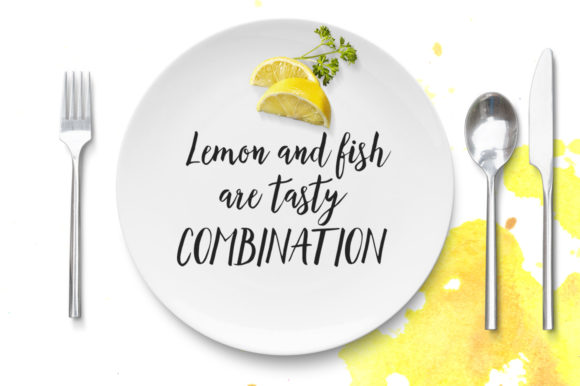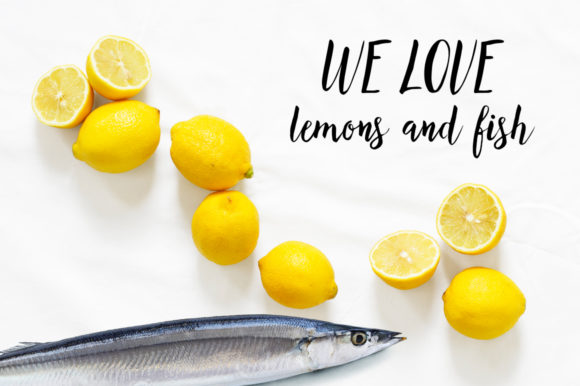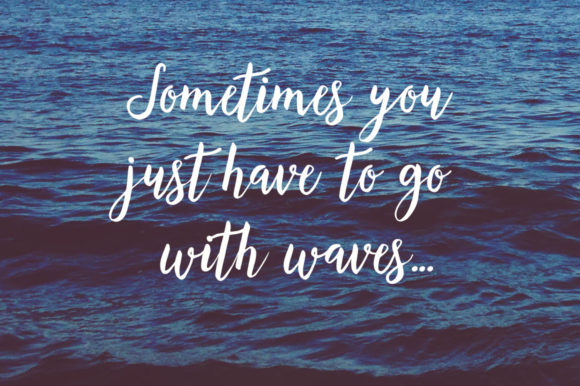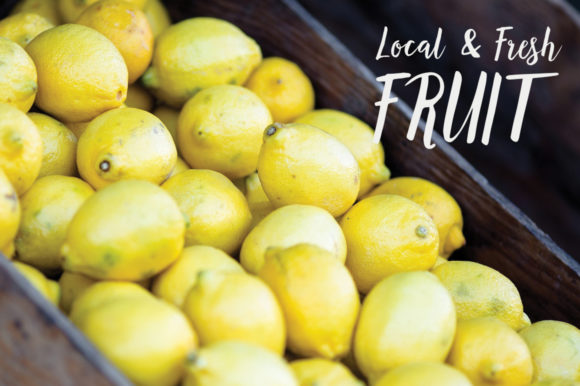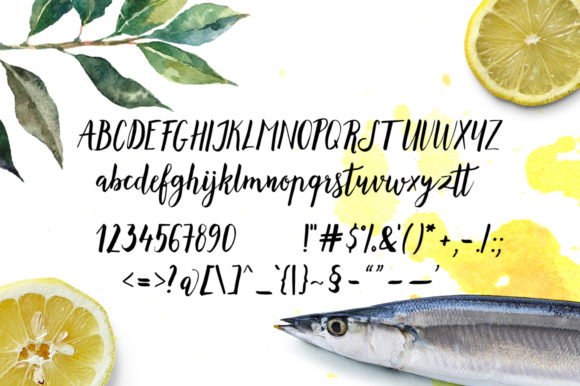
Introduction to Lemonfish Font
As a designer, there’s nothing quite like the thrill of discovering a new font that sparks creativity and sets your project apart. It’s that moment when you stumble upon the perfect combination of style and personality that makes all the difference. For me, that moment came when I found the Lemonfish Font – a delightful handlettered script that’s as charming as it is versatile.
With its playful, cursive lines and whimsical feel, the Lemonfish Font is a design resource that’s perfect for adding an artistic touch to any creative project. Whether you’re crafting wedding announcements, designing greeting cards, or building a brand, this font is sure to bring a smile to your audience’s faces. And the best part? It’s available for a free download, making it an accessible and valuable addition to any designer’s toolkit.
What sets the Lemonfish Font apart is its high-quality design, which allows for a transparent background that makes it easy to customize and integrate into your project. Whether you’re working on a commercial or personal design, this font is a must-have for any designer looking to add a little extra magic to their work.
Key Features of Lemonfish Font
- Designed with a unique, modern aesthetic, perfect for adding a touch of sophistication to designs
Honest Review: Lemonfish Font
I recently stumbled upon the Lemonfish Font and was eager to put it to the test in my latest creative project. As a designer, I’m always on the lookout for high-quality design resources that can elevate my work.
First impressions were great – the font is modern, sleek, and easy on the eyes. I was particularly impressed with the transparent background option, which made it a breeze to use in a project that required a clean and minimalist look.
- ✨ Works well in digital projects: The font’s clear and legible design makes it perfect for use in digital applications, such as websites and mobile apps.
- ✨ Great for creative projects: The font’s unique style makes it an excellent choice for creative projects that require a touch of sophistication and elegance.
However, I did encounter a few limitations while using the Lemonfish Font. ⚠️ One of the main issues I faced was the limited character set, which made it difficult to use in projects that required a wide range of characters.
Overall, I’m impressed with the Lemonfish Font and would definitely consider using it in future projects. While it may not be perfect, its unique style and high-quality design make it a valuable addition to any designer’s toolkit. And the best part? It’s a free download, making it an accessible design resource for designers of all levels.
What is the recommended font size for optimal readability with the Lemonfish Font?
The recommended font size for optimal readability with the Lemonfish Font is between 12 and 24 points. However, the ideal font size may vary depending on the design software, screen resolution, and other factors. Experiment with different font sizes to find the one that works best for your creative project.